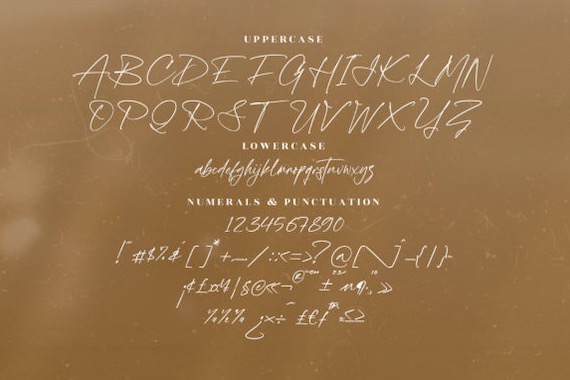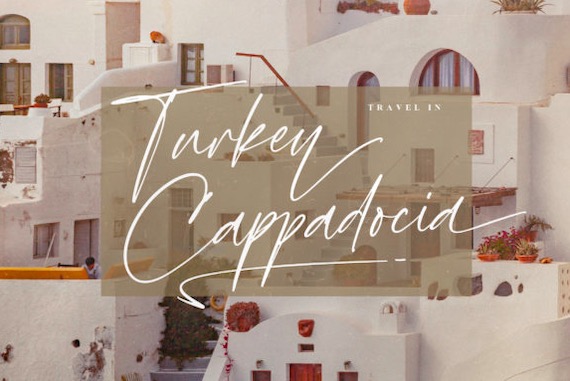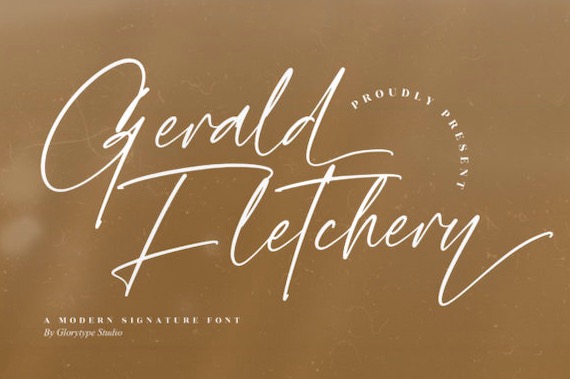
Gerald Fletchery Font is a classy, luxury, and casual handwritten script typeface. This script font includes friendly and well balanced characters and as a result, it matches a wide pool of designs. This font is PUA encoded which means you can access all of the glyphs and swashes with ease!
Gerald Fletchery Handwritten Signature Font